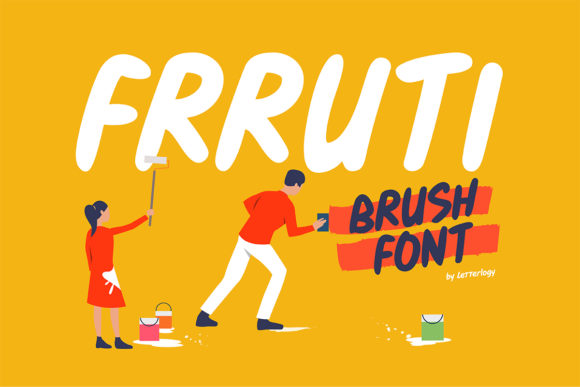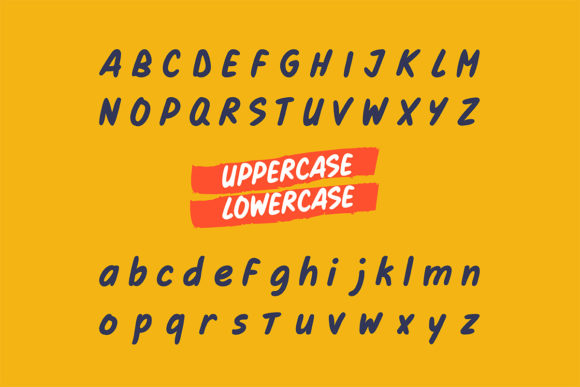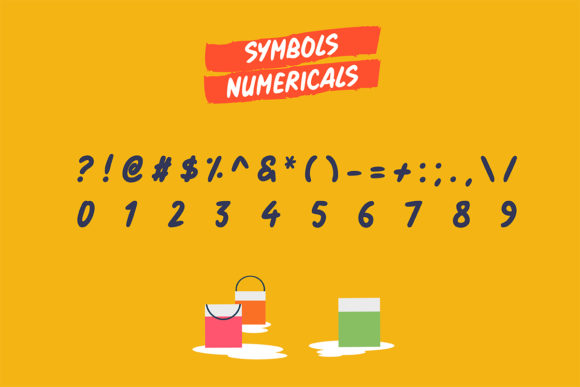
About Frrutti Font
Frrutti is a bold handwritten font, carefully handcrafted to become a true favorite. Its casual charm makes it appear wonderfully down-to-earth, readable and, ultimately, incredibly versatile. Frrutti will look outstanding in any context, whether it’s being used on busy backgrounds or as a standalone headline!